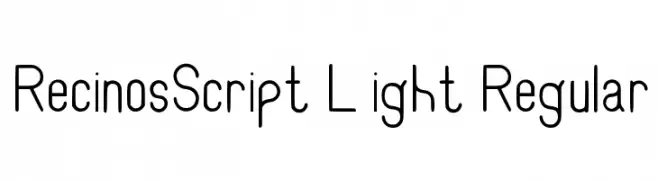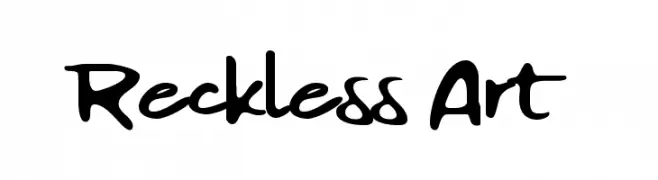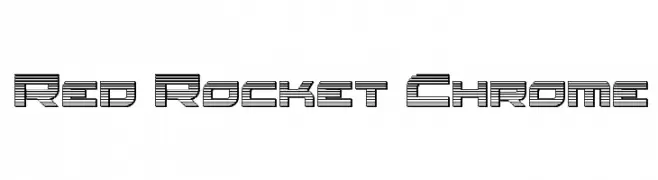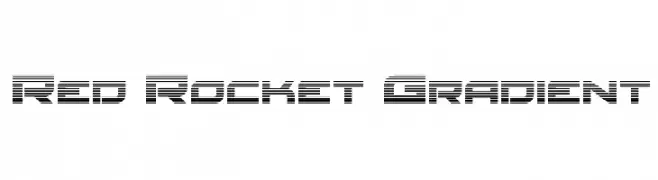
( Kerin Edgardo Recinos Lopez )
A light, modern script font with elegant curves and clean lines.
( Kerin Edgardo Recinos Lopez )
A playful, handwritten-style font with rounded, smooth characters.
( Lettersiro Studio - Muhammad Sirojuddin - creativemarket.com/Lettersiro )
A bold, handwritten font with dynamic strokes and a playful, artistic style.
( Jorge G. Chevere - www.darkroomode.com )
A bold, geometric font with a modern, digital aesthetic.
( Iconian Fonts - Daniel Zadorozny - www.iconian.com )
A bold, futuristic font with geometric and angular design.
( Iconian Fonts - Daniel Zadorozny - www.iconian.com )
A bold, geometric font with a 3D effect and modern aesthetic.
( Iconian Fonts - Daniel Zadorozny - www.iconian.com )
A bold, futuristic font with geometric outlines and strong visual impact.
( Iconian Fonts - Daniel Zadorozny - www.iconian.com )
A futuristic, chrome-like font with geometric shapes and sharp angles.
( Iconian Fonts - Daniel Zadorozny - www.iconian.com )
A bold, italicized font with a futuristic, striped design.
( Iconian Fonts - Daniel Zadorozny - www.iconian.com )
A futuristic, striped font with bold geometric shapes and a dynamic, energetic style.